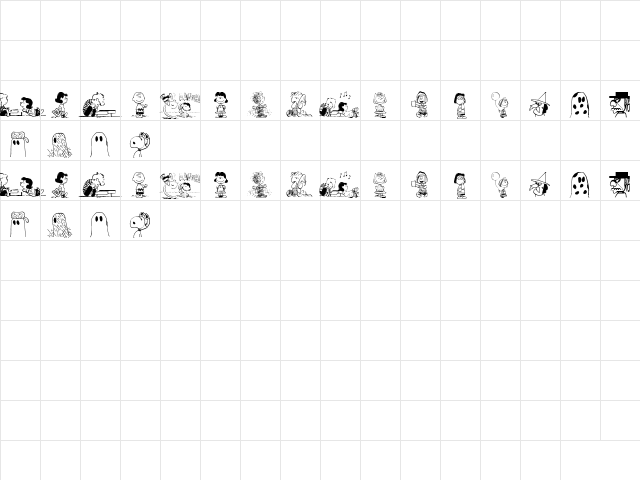
Peanuts Gang Dings Regular Font Preview
Peanuts Gang Dings Regular
Design Context for Peanuts Gang Dings Typeface
Peanuts Gang Dings is a composed and adaptable typeface that performs quietly and consistently across a wide range of design contexts.